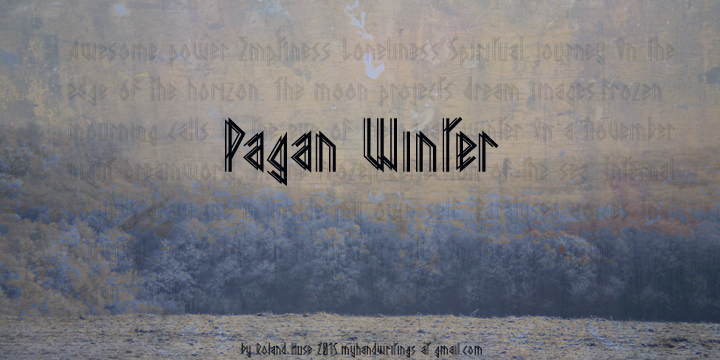
Preview and download Pagan Winter Font. Created by Runes & Fonts in Gothic Modern styles with Free for personal use license.
Font name: | Pagan Winter |
PAGAN WINTER is another font inspired by Szekely-Hungarian runes. I added some dimension to make it more stylish. The name comes from the song „Pagan Winter” by Sear Bliss https://www.youtube.com/watch?v=PL3sGWi2wDw Free for personal use, for commercial and language extentions or extra glyph contact myhandwritings@gmail.com I hope you enjoy this font! \m/! Roland http://www.rolandhuse.com |